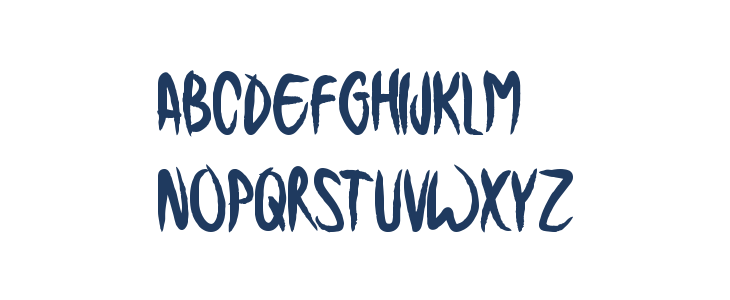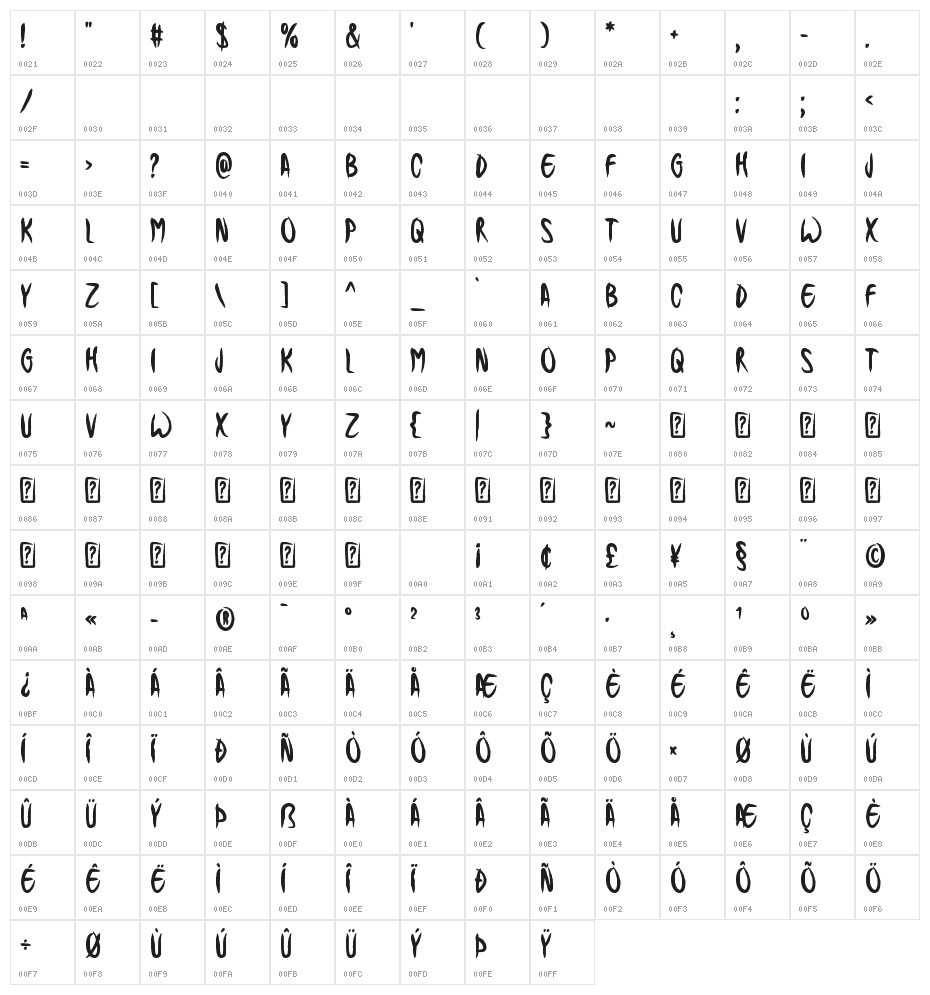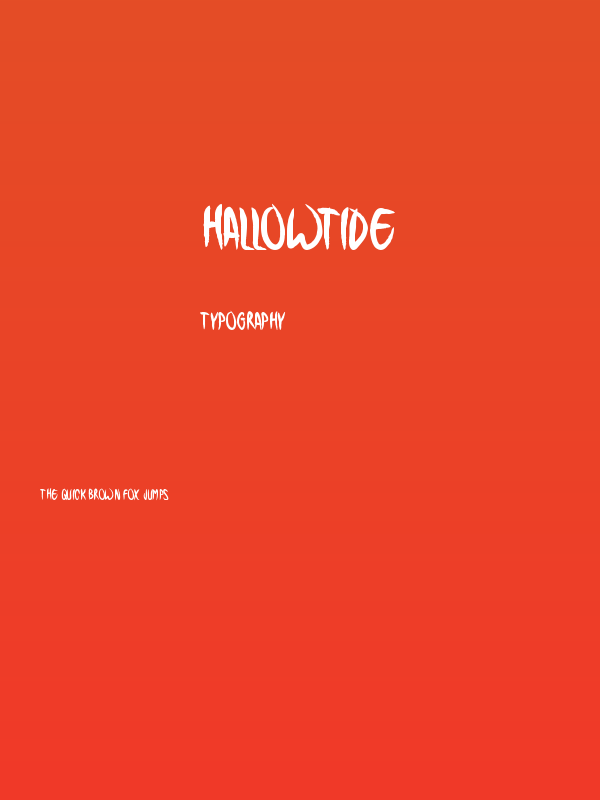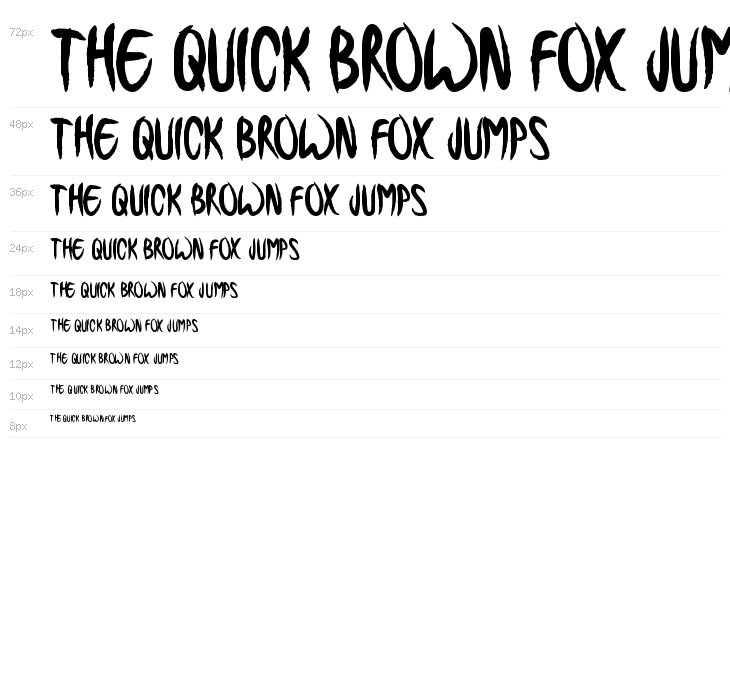
Hallowtide Font
Hallowtide Description
A bold, brush-style handwritten font with jagged, uneven strokes and expressive, organic letterforms. The characters have a rough, energetic appearance, with varying stroke thickness and irregular edges, evoking a spooky or dramatic mood.
| Overall Style | Decorative, Dramatic, Spooky |
| Use Case | Headlines, Posters, Logos, Event Graphics |
| Proposed Projects | Halloween posters, horror-themed graphics, event invitations, dramatic headlines, branding for edgy or alternative products. |